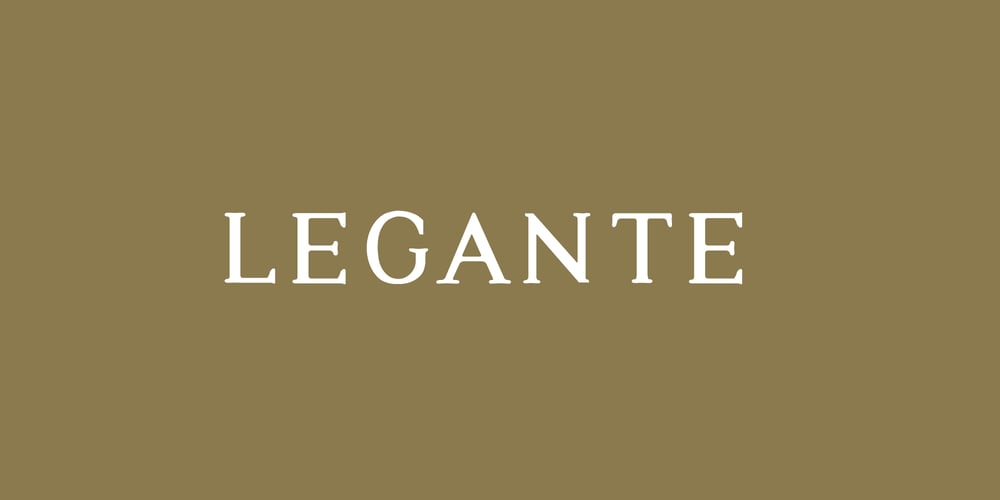
Legante Font Family was designed by Mohammad Teguh and published by Starone Project. Legante contains 6 styles and family package options. Legante was created with influence from classic letter styles. Very suitable for writing manuscripts or book covers. And Legante also comes in a vintage version.